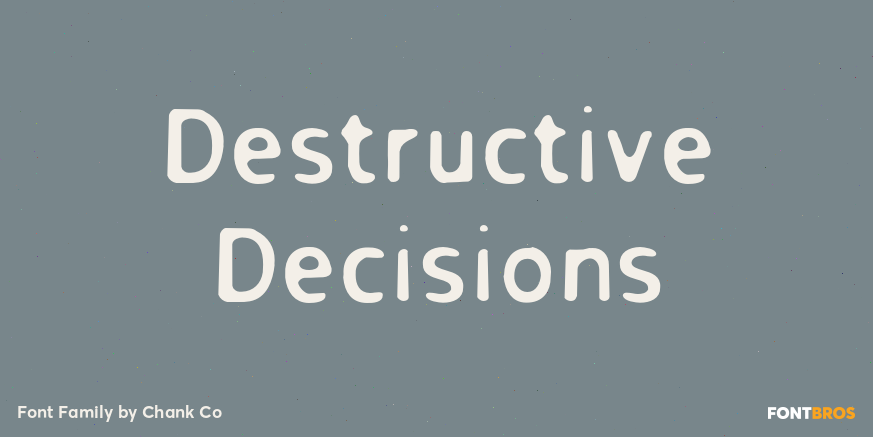
Destructive Decisions
About Destructive Decisions
Destructive Decisions is a font based upon the inherent flaws of human nature?presented under the guise of complete legibility. At first impression this font is very readable, but upon closer examination you\’ll notice the edges are fuzzy and some of the…